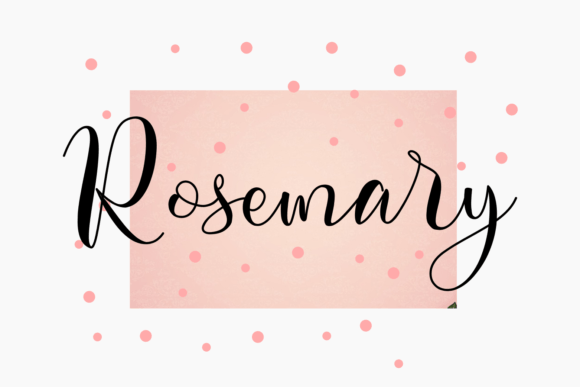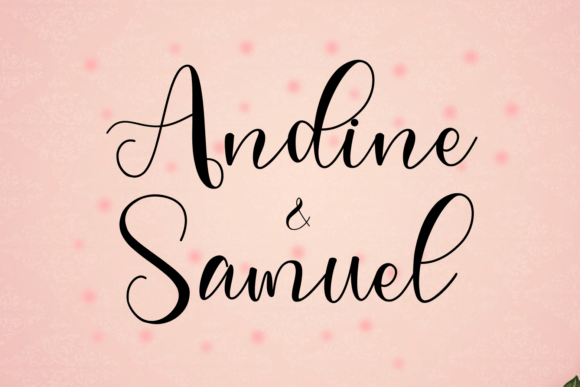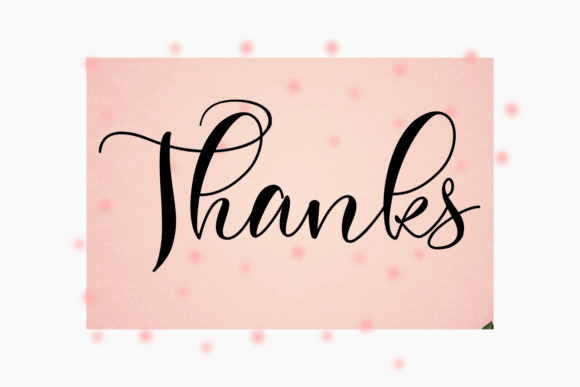
Tymberlay Font
About Tymberlay Font
**Tymberlay Font: Charming and Elegant Handwritten Style**
The Tymberlay font exudes charm and elegance with its handwritten style, making it a versatile choice for a variety of design projects. Here are some creative ways to make the most of the Tymberlay font in your design work:
1. **Wedding Invitations:** Create exquisite wedding invitations that evoke a sense of romance and sophistication. The Tymberlay font’s elegant touch is perfect for setting the tone for a memorable celebration.
2. **Thank You Cards:** Design thank you cards with a personal and heartfelt touch. The Tymberlay font’s charm adds warmth to your expressions of gratitude.
3. **Quotes and Inspirational Posters:** Craft beautiful quote graphics and inspirational posters that combine elegant typography with meaningful messages, making them visually appealing and emotionally resonant.
4. **Greeting Cards:** Whether it’s for birthdays, anniversaries, or special occasions, use the Tymberlay font to create stunning greeting cards that convey your best wishes with grace.
5. **Logos:** Design elegant and timeless logos for brands and businesses that prioritize sophistication and style. The Tymberlay font can add a touch of luxury to your visual identity.
6. **Business Cards:** Impress clients and contacts with business cards that feature the Tymberlay font. Its charming and elegant appearance can leave a lasting impression.
7. **Branding Materials:** Extend the Tymberlay font’s elegance to other branding materials such as letterheads, envelopes, and packaging for a cohesive and refined brand image.
8. **Book Covers:** Use the font for book titles and covers, especially for genres that require a touch of classic elegance, such as romance novels and poetry collections.
9. **Magazine Headlines:** Create eye-catching and stylish headlines for magazine covers or feature articles, drawing readers in with the font’s captivating charm.
10. **Social Media Graphics:** Enhance your social media presence with visually appealing graphics, including elegant typography, using the Tymberlay font for a touch of sophistication.
11. **Event Announcements:** Announce formal events, galas, or upscale gatherings with invitations and announcements that reflect a sense of class and elegance through the font.
12. **Photography Watermarks:** Add a distinctive and elegant watermark to your photography portfolio, protecting your work while maintaining a professional image.
13. **Labeling Fine Products:** Apply the Tymberlay font to product labels for high-end and artisanal goods, signaling quality and refinement to potential customers.
14. **Certificates and Awards:** Design certificates and awards with an elegant touch, making the recognition of achievements even more special.
15. **Restaurant Menus:** Use the font for upscale restaurant menus and wine lists, creating a sophisticated dining experience from the moment patrons lay eyes on the menu.
16. **Luxury Packaging:** Elevate the packaging of luxury products, such as perfumes, cosmetics, or high-end chocolates, with the Tymberlay font for added allure.
17. **Fashion Branding:** Incorporate the font into fashion brand logos, tags, and marketing materials to convey a sense of style and grace.
Tymberlay’s charming and elegant handwritten style adds a touch of sophistication and grace to your design projects, making it an ideal choice for conveying refined aesthetics and sentiments. Whether you’re working on personal projects, special occasions, or branding for businesses with a focus on elegance, the Tymberlay font offers a captivating visual presence that leaves a lasting impression.